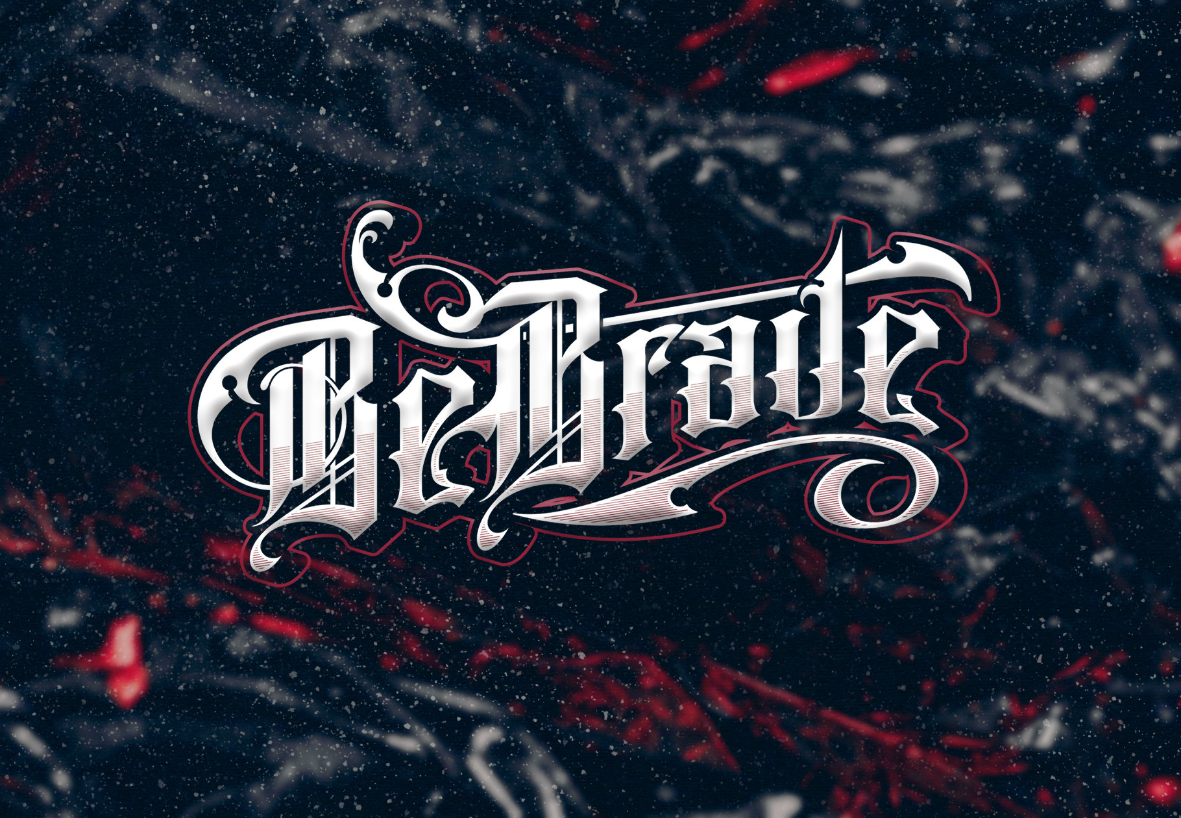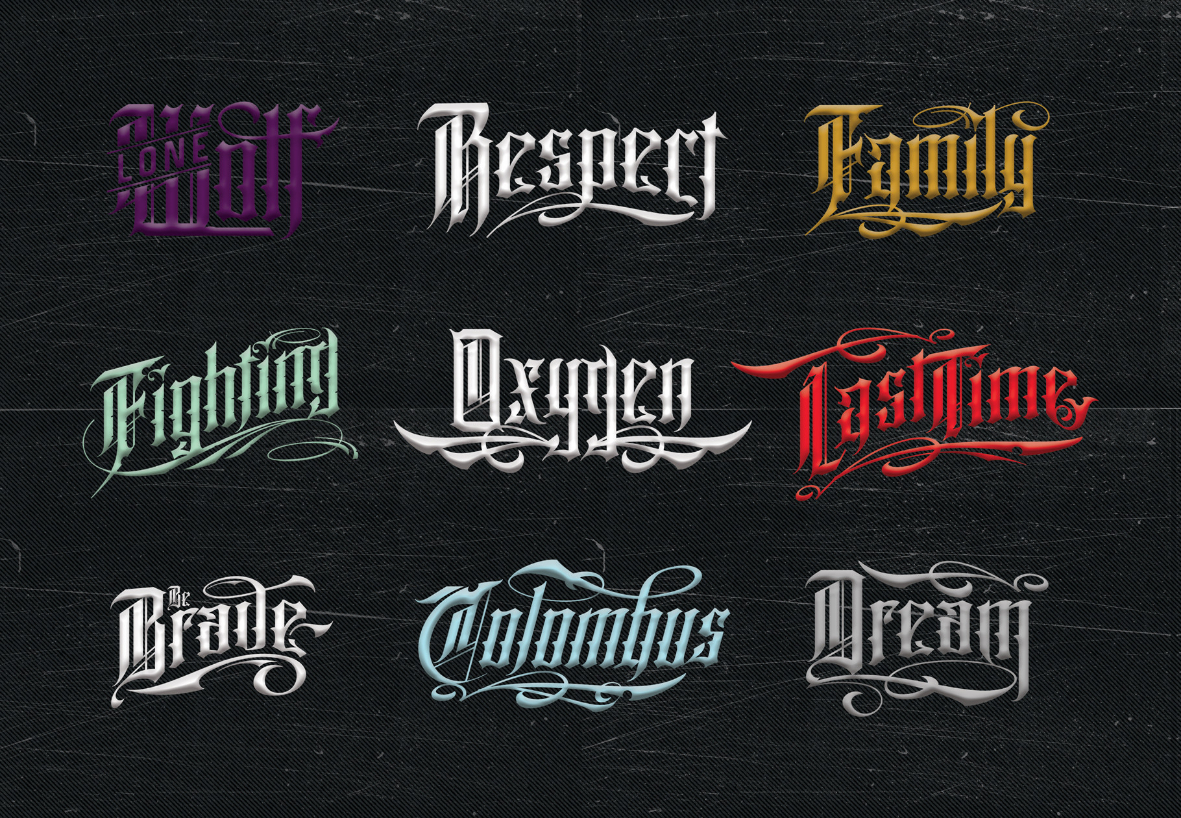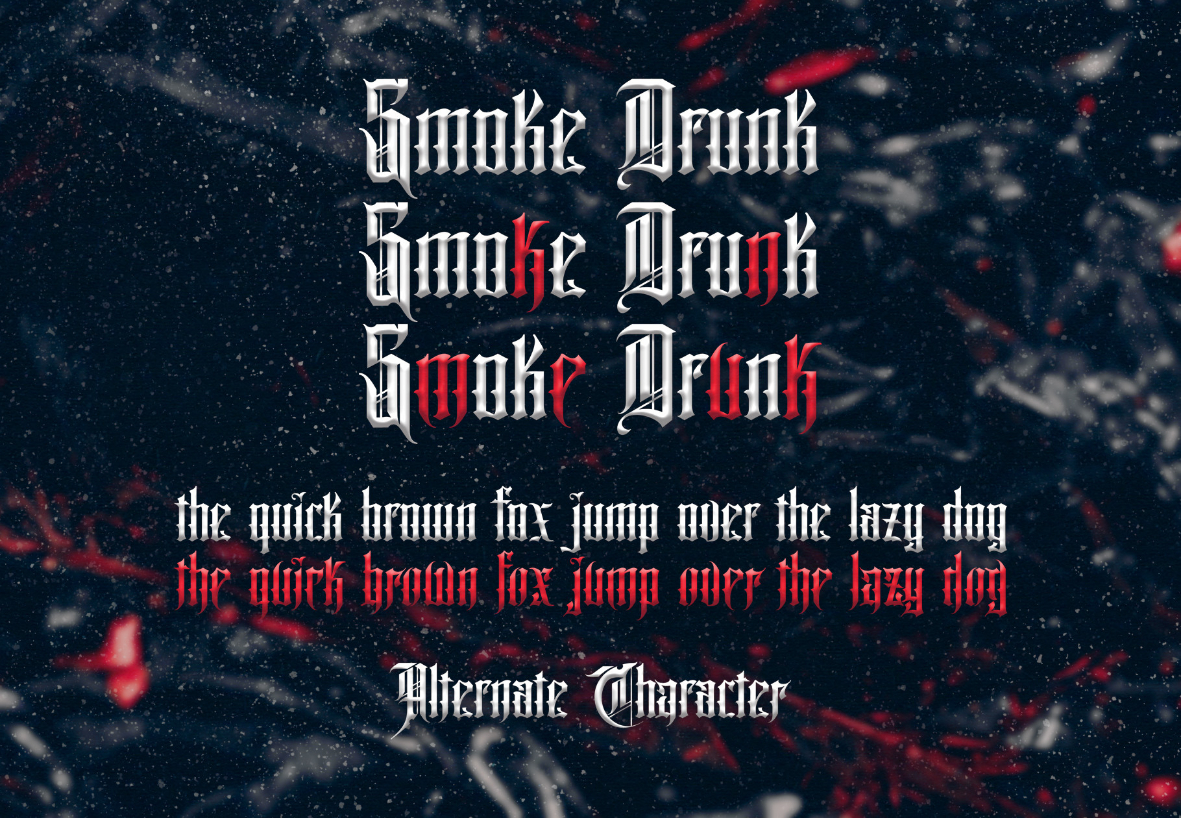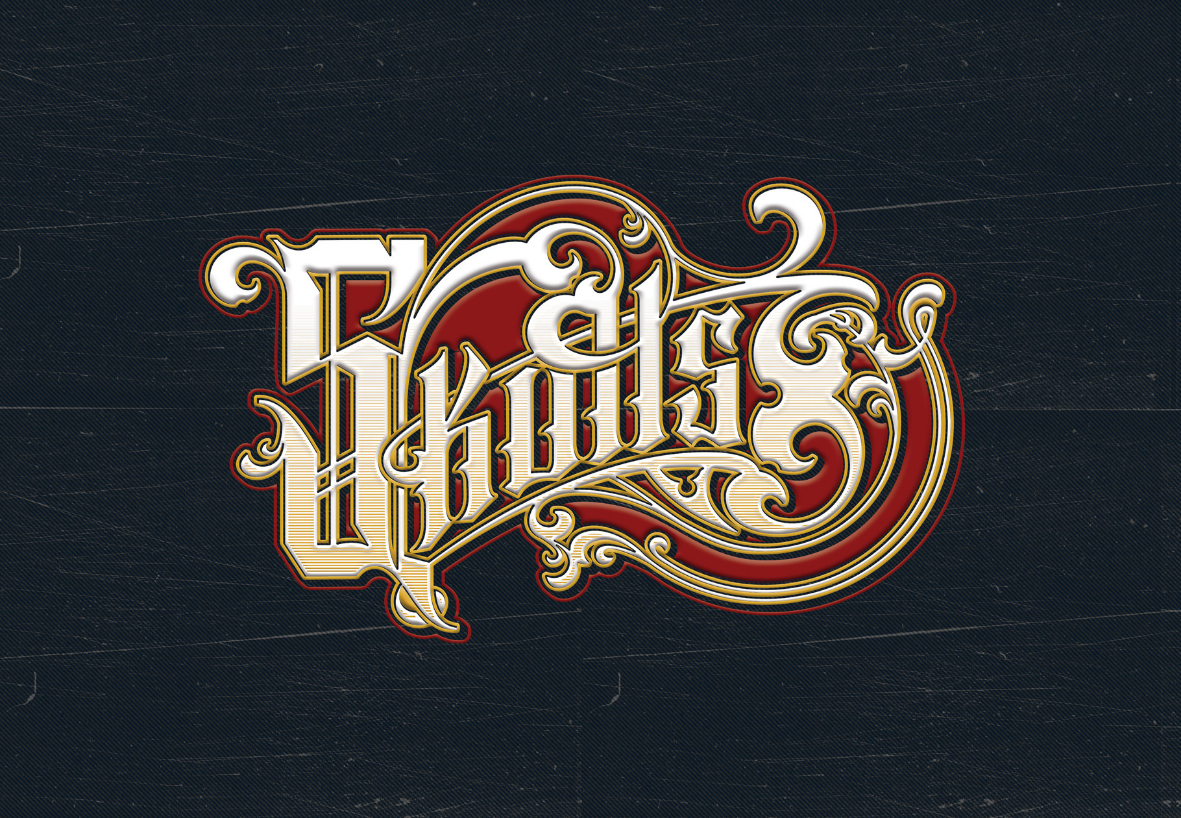
Code Black Font
About Code Black Font
Code Black is a dramatic, highly detailed and assertive blackletter font. It works incredibly well on logos, tattoos, web designs or posters. The only limit is your imagination.